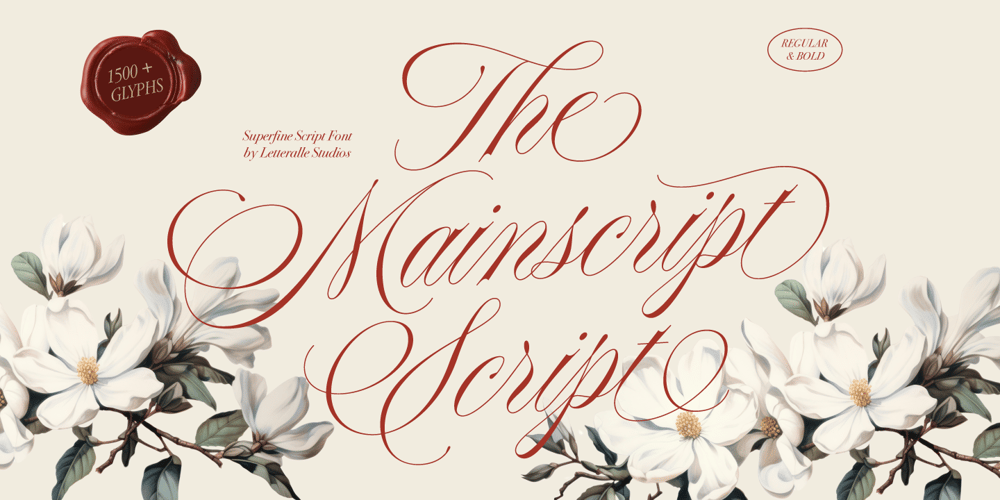
Mainscript Font Family was designed by Annas Alam Yahya and published by Letteralle. Mainscript contains 2 styles and family package options. Mainscript Script is a superbly crafted superfine calligraphy script font, designed with a classic, feminine, and elegant touch. This beautiful typeface is available in two versions: regular and bold.Mainscript Script stands out with its extensive glyphs collection. Each letter has many alternatives, which are easy to access by adding a number after the letter you want to change, for example, just type : G2, G3, G4, and more. Monalisa Script highly versatile, offering endless possibilities for customization and creativity in your designs, such as Branding, Logo, Ads, Merchandise, Social Media Post, Packaging, Magazine Cover, Website, Wedding Invitation, and many more.Enjoy Designing!Thank You!Letteralle Studios